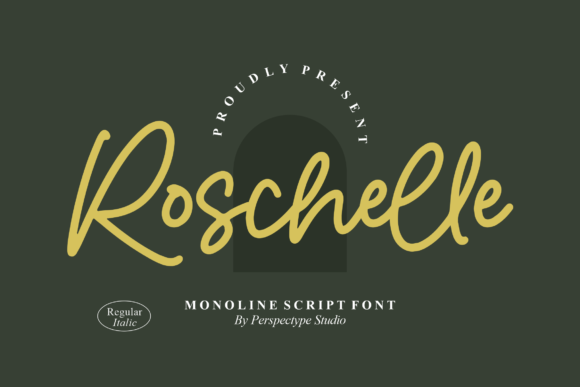
Introducing Roschelle Font, the calligraphic script that will add an exquisite touch to your designs. Each letter flows effortlessly, like a gentle breeze caressing a summer meadow. Roschelle's delicate curves and flourishes will elevate your projects, transforming them into works of art.
Whether you're crafting rustic wedding invitations, elegant packaging, or eye-catching posters, Roschelle is your perfect match. Its versatility knows no bounds, allowing you to express your creativity in countless ways.
Picture your wedding invitations adorned with Roschelle's graceful strokes, setting the tone for a romantic and unforgettable celebration. Or imagine your brand's packaging showcasing Roschelle, conveying elegance and charm that will captivate your customers.
With Roschelle Font, you'll discover a world of creative possibilities. Its beauty will inspire you to create designs that resonate with your audience, leaving a lasting impression on all who behold them.